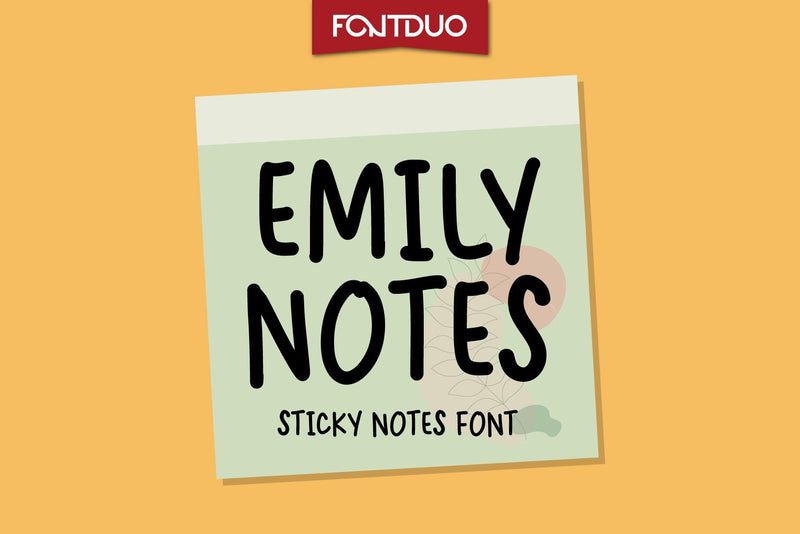
Emily Sticky Notes Font
There's nothing cuter than a handwritten font such as Emily Notes FD. Its potential to elevate any creation will make this font a valuable addition to your font collection.